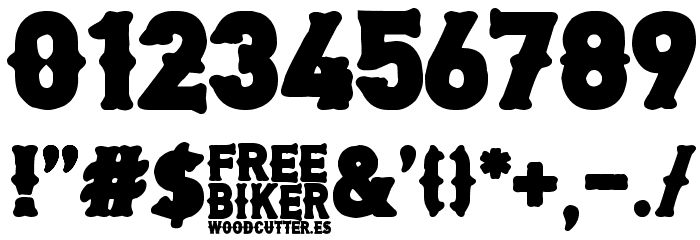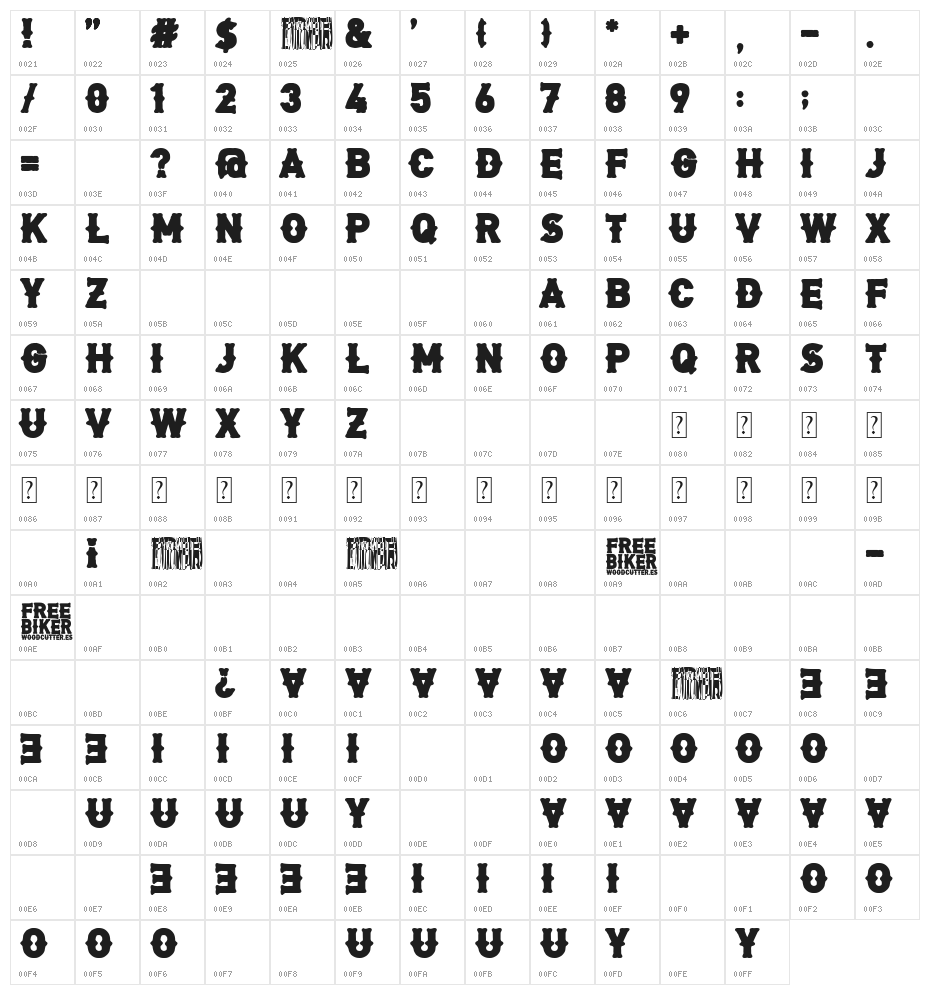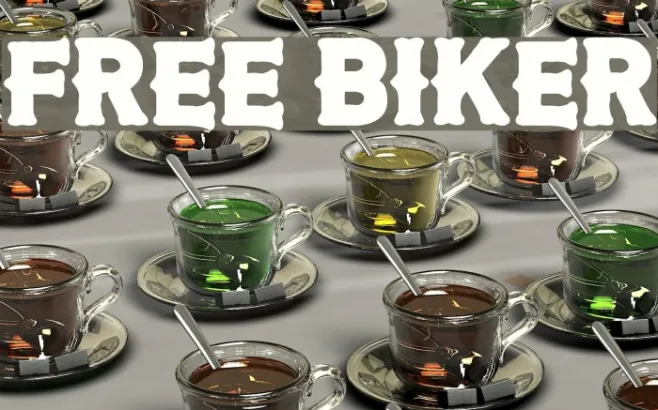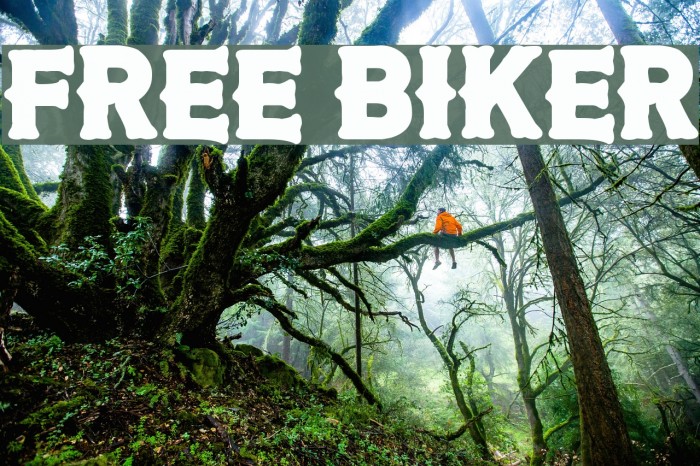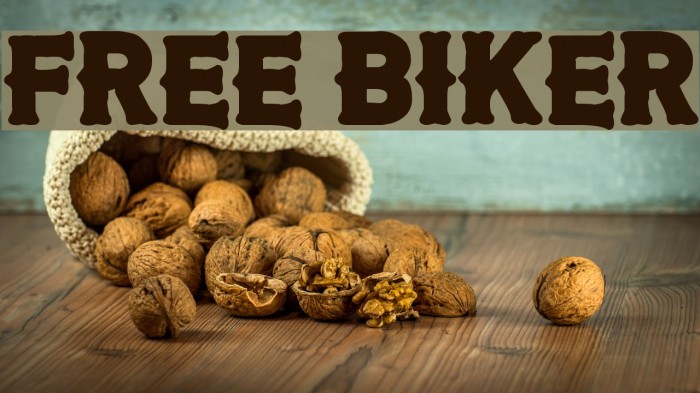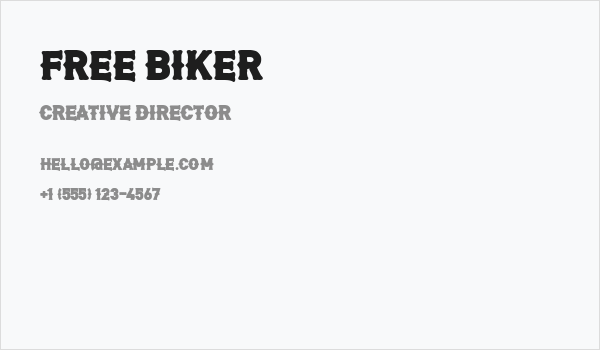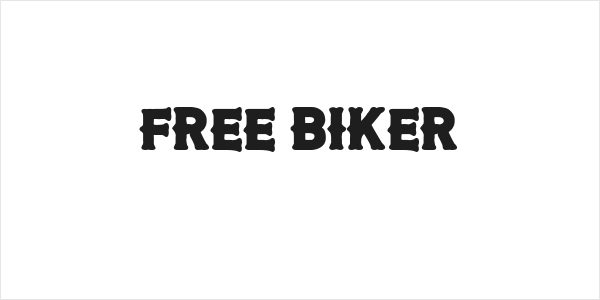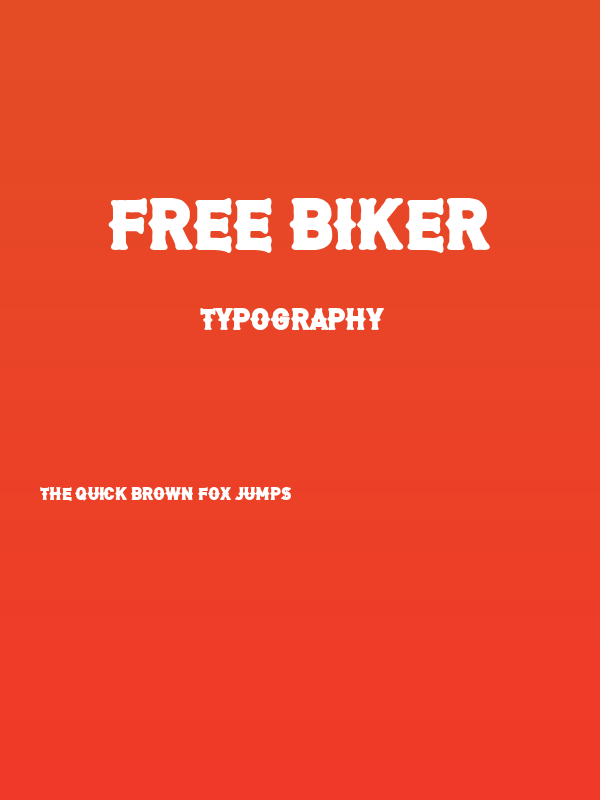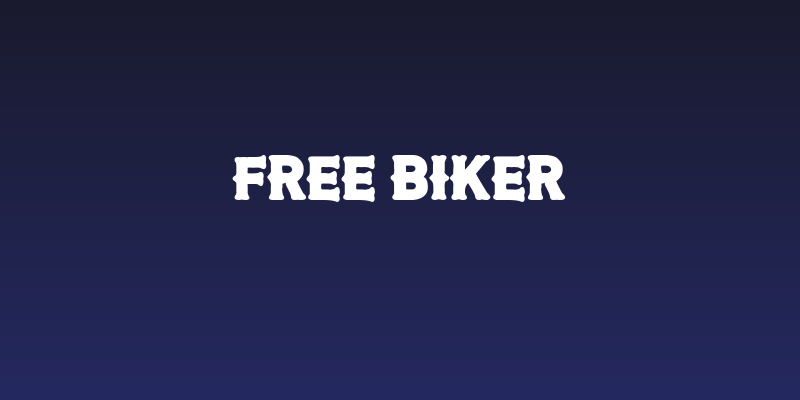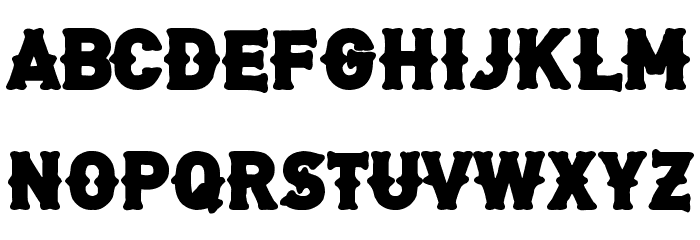
Free Biker Font
Free Biker Description
This font features a bold and rugged design, reminiscent of classic biker aesthetics. The characters are heavily stylized with thick strokes and a slightly distressed appearance, giving it a raw and edgy feel. The uppercase and lowercase letters maintain a consistent weight, while the numbers and special characters follow the same bold style. The overall look is both powerful and dynamic, making it ideal for projects that require a strong visual impact.
| Proposed Projects | Ideal for use in motorcycle club branding, event posters, apparel design, and any project needing a strong, edgy look. |